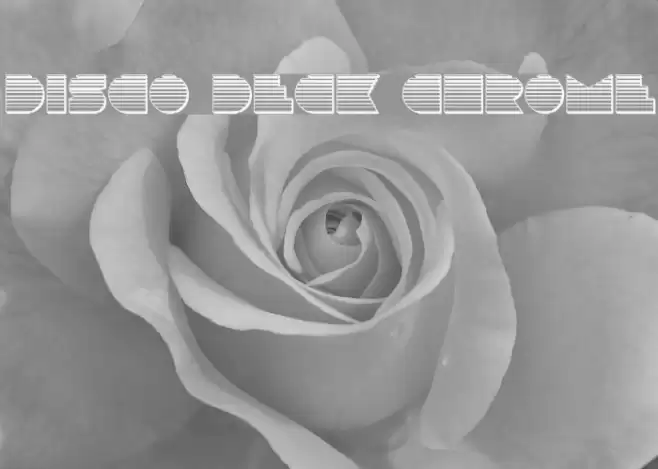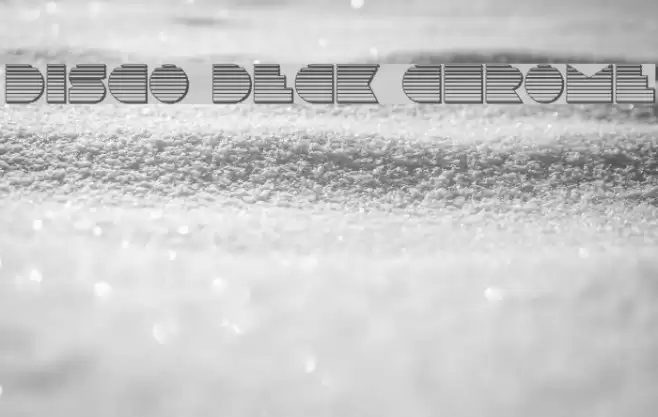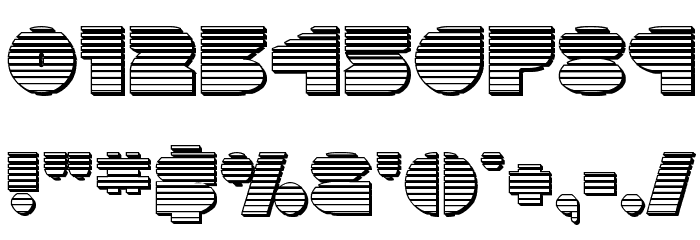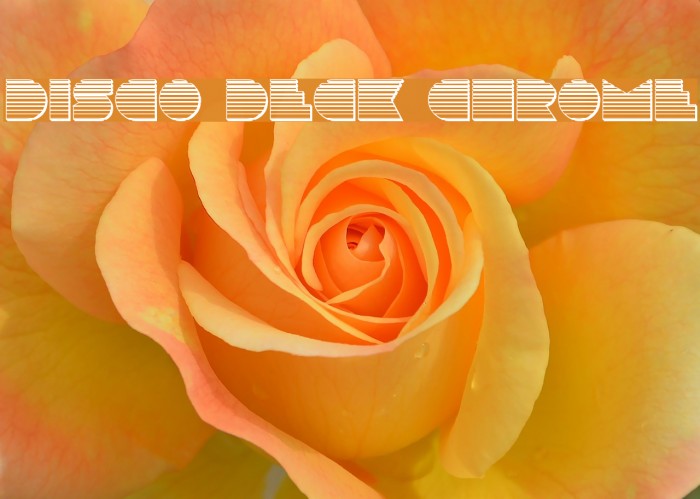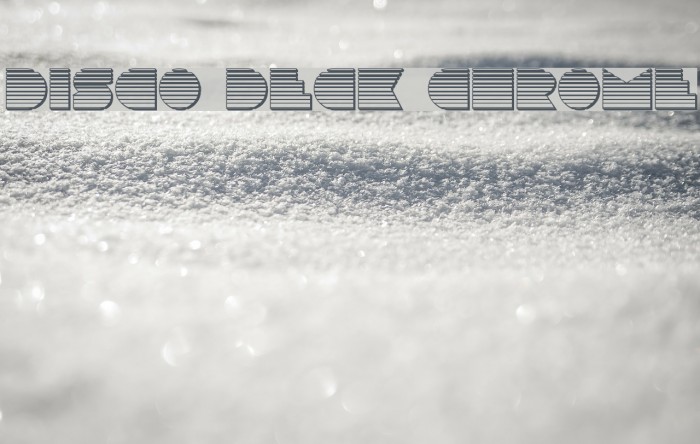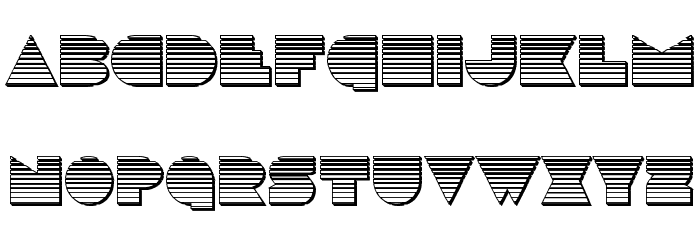
Disco Deck Chrome Font
Disco Deck Chrome Description
This font features a bold, geometric design with a distinct striped pattern running horizontally across each character. The uppercase and lowercase letters maintain a consistent width, creating a uniform appearance. The numerals and special characters follow the same design principles, ensuring cohesion throughout. The style is reminiscent of retro and disco aesthetics, making it ideal for projects that aim to capture a vintage or playful vibe. The characters are well-defined with a high level of detail, making them stand out in any design.
A bold, geometric font with a retro striped pattern from Uncategorized fonts.
- Proposed Projects: Ideal for retro-themed posters, album covers, event flyers, and branding that requires a vintage or playful touch.
- Overall Style: Vintage